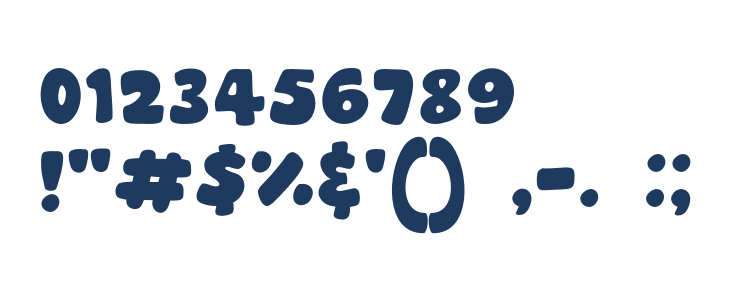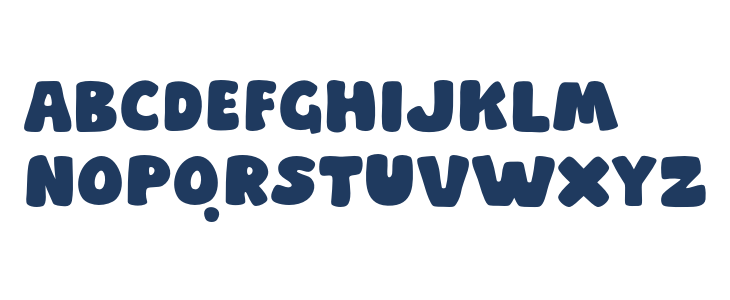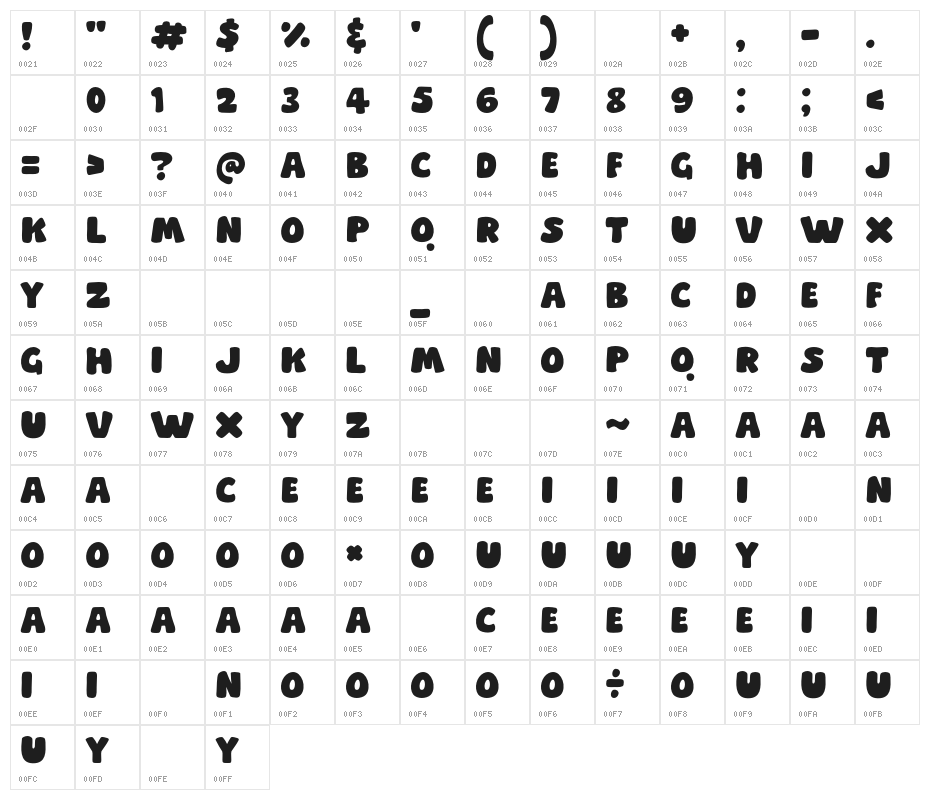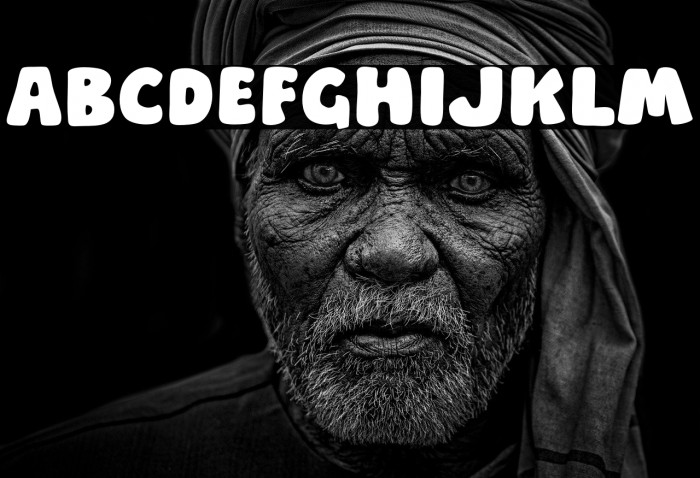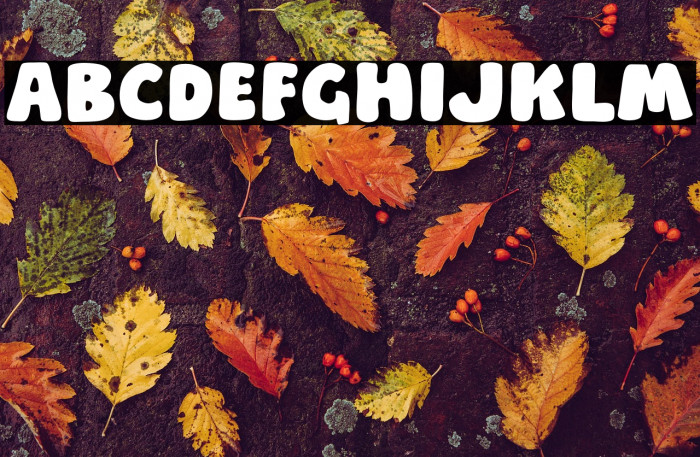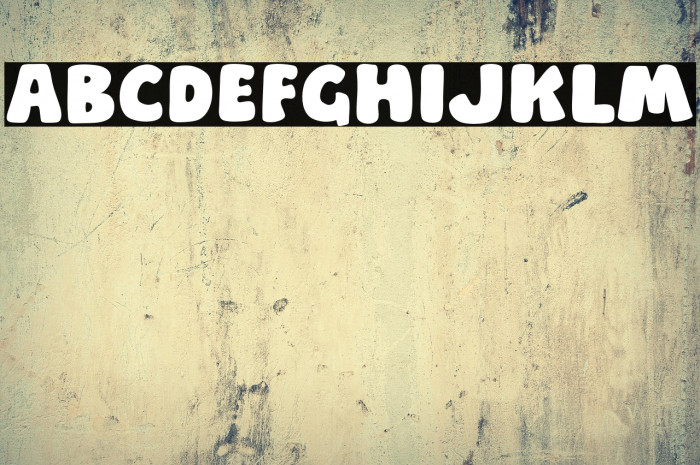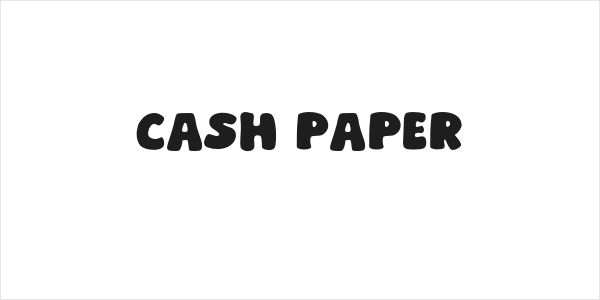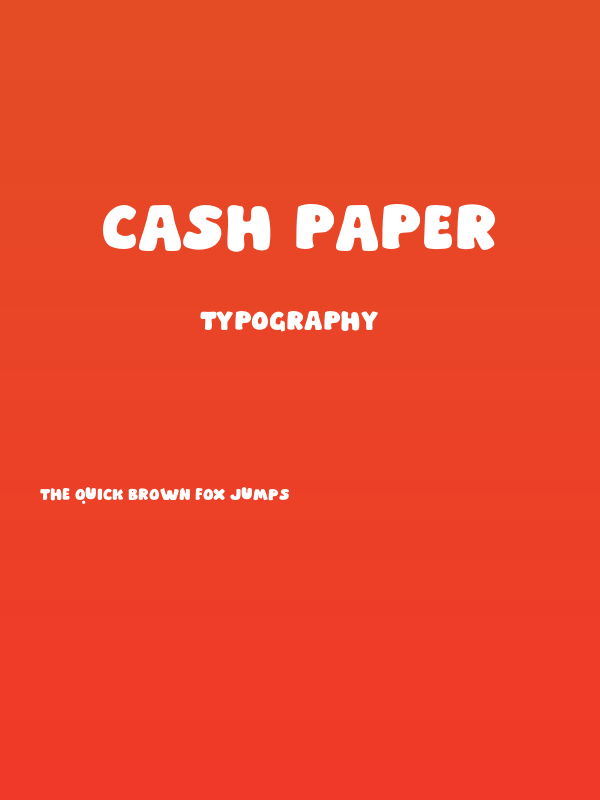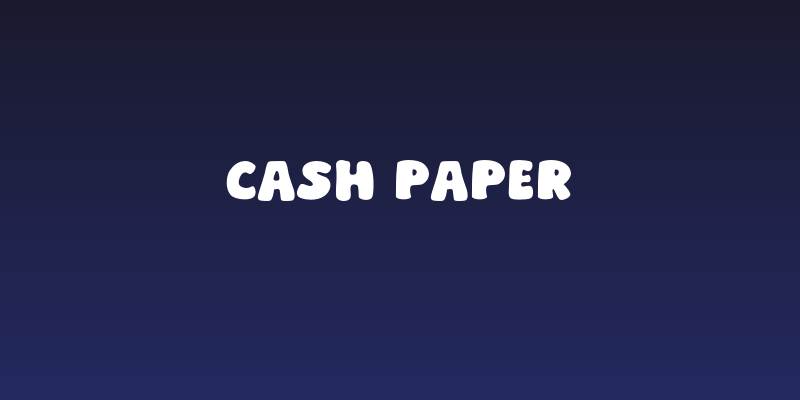
Cash Paper Font
Cash Paper Description
A bold, rounded, and playful sans-serif font with thick strokes and soft edges, featuring uppercase letters, numbers, and common punctuation marks.
| Overall Style | Playful, Friendly, Casual |
| Use Case | Headlines, Logos, Display text |
| Proposed Projects | Children's books, cartoons, posters, logos, and playful branding. |